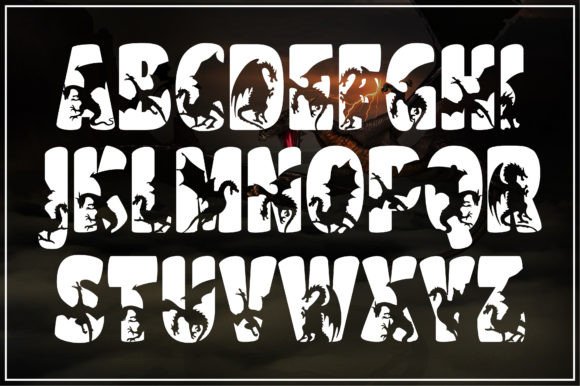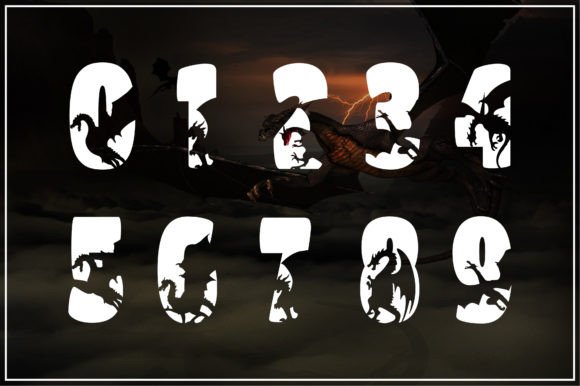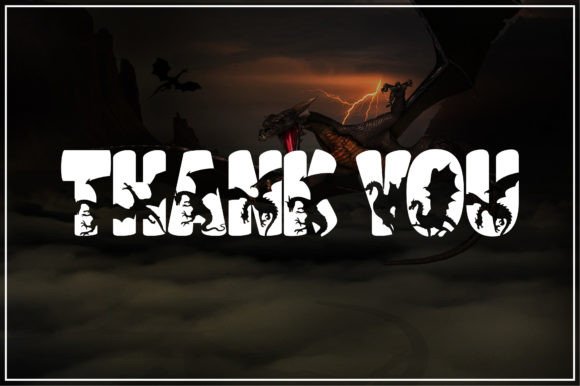
Unleash Your Creativity with the Majestic Dragon Font
You know that feeling when you’re brainstorming ideas for a new project, and suddenly a spark of inspiration hits you? The possibilities are endless, and your imagination runs wild. This is exactly what happened to designers and crafty enthusiasts when they discovered the dramatic Dragon Font. This bold, eye-catching font is more than just a decorative element – it’s a game-changer for any design project.
With its unique, medieval-inspired design, the Dragon Font is the perfect addition to any project that needs a touch of drama and elegance. Whether you’re creating a logo, a poster, or a custom invitation, this font is sure to make a lasting impression. And the best part? It’s incredibly versatile, making it a valuable asset for designers who want to add a personal touch to their work.
Key Features of Dragon Font
- Font Family: Dragon Font is a fantasy font family with a unique blend of dragon-inspired designs.
- Character Set: Includes a wide range of characters, including uppercase and lowercase letters, numbers, and special characters.
- Unique Characteristics: Dragon Font features intricate dragon designs, flames, and other fantasy elements, making it perfect for fantasy-themed projects, such as video games, novels, and graphic novels.
Dragon Font Review
I recently had the chance to work with the Dragon Font, and I must say it’s an interesting choice for designers. Here are my thoughts.
- The Dragon Font’s unique, bold design makes it perfect for titles and headings. It adds a touch of drama and flair to any project.
- The font’s high contrast and legibility make it easy to read, even at smaller font sizes.
- The Dragon Font is highly customizable, with a wide range of font weights, styles, and sizes to choose from.
- The font’s ornate design can be overwhelming if used extensively throughout a project. It’s best to use it sparingly to avoid visual fatigue.
- The Dragon Font may not be the best choice for body text, as it can be difficult to read in large blocks of text.
- The font’s compatibility with certain devices and browsers may be limited, which could result in inconsistent display.
The Dragon Font is a bold and eye-catching choice for designers, but it requires careful use to avoid overwhelming the user. When used judiciously, it can add a touch of drama and flair to any project. However, it’s not the best choice for every project, and designers should be aware of its limitations.
Use Dragon Font to create eye-catching titles, headings, and labels.
Experiment with different font sizes and colors to create visual interest.
Combine Dragon Font with other fonts to create a unique and eclectic look.
Use Dragon Font to add a touch of whimsy and fantasy to your designs.
Use Dragon Font for fantasy-themed designs, such as:
– Book covers
– Movie posters
– Video game graphics
– Fantasy-themed websites and blogs
– Children’s book illustrations